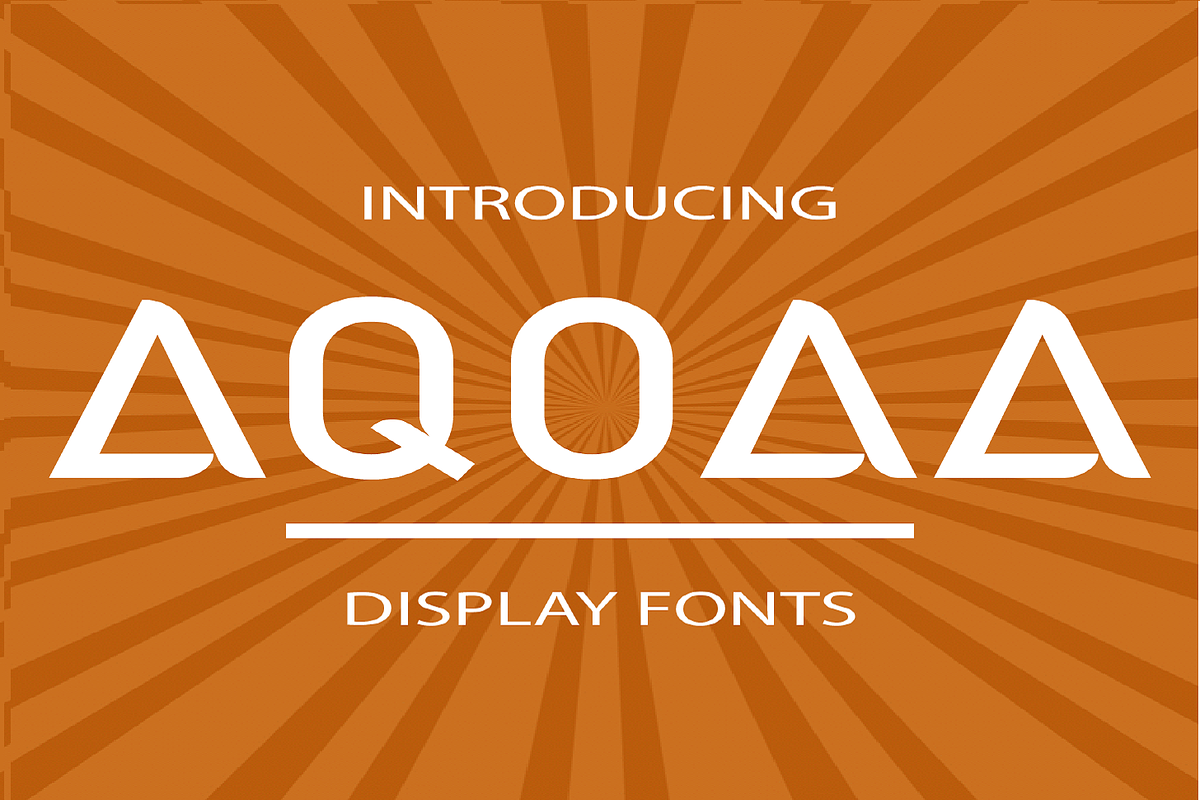
Aqoaa Regular Display Fonts Free Download is a modern and artistic typeface crafted to make a bold visual statement. With its geometric structure, clean lines, and futuristic vibe, Aqoaa is perfect for branding, tech-inspired designs, posters, album covers, and fashion-forward projects.
This display font blends simplicity with creative flair, offering a unique look that stands out while remaining highly legible. Whether you're designing for a digital startup, music label, or experimental project, Aqoaa adds a sharp, contemporary edge to your typography.